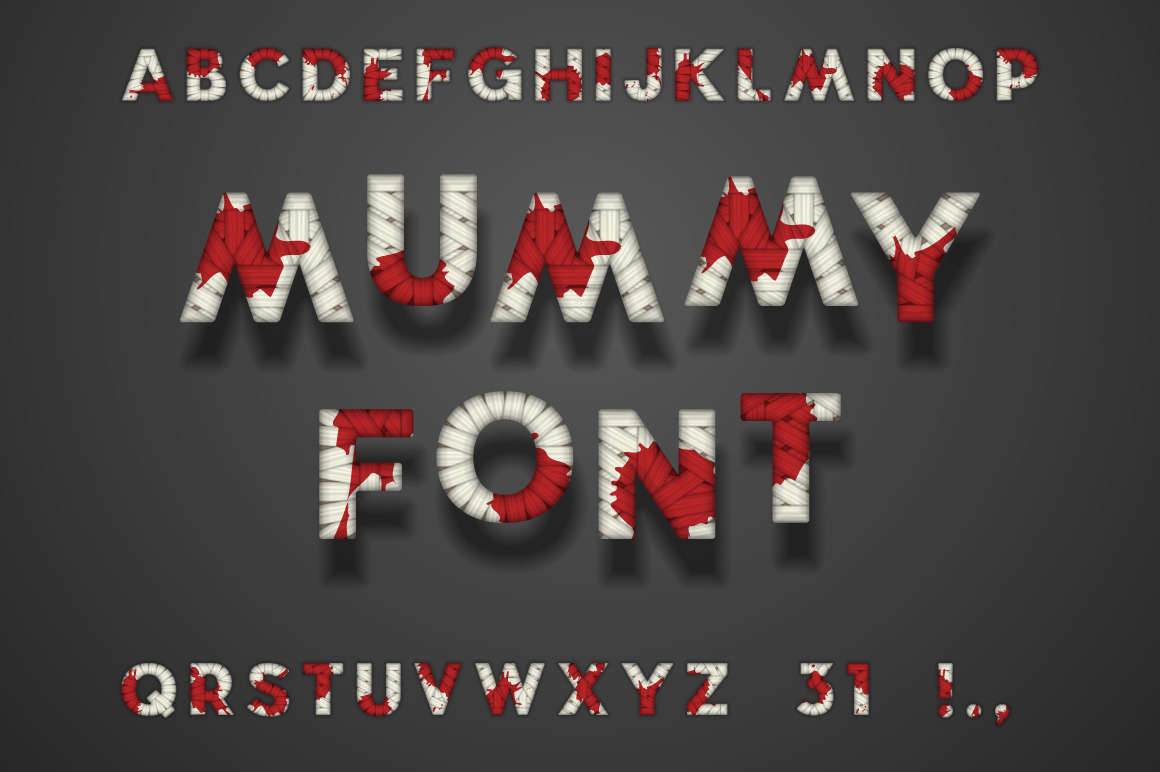
Mummy Bandage Font, Blood. Halloween
Mummy Bandage Font With Blood. Great for Halloween cards and illustrations. Sans Serif Latin Alphabet.
Letters. Numbers 3 and 1. So, you can write "October 31". Dot, comma, exclamation mark. Comes in both Vector and High Resolution Raster formats: